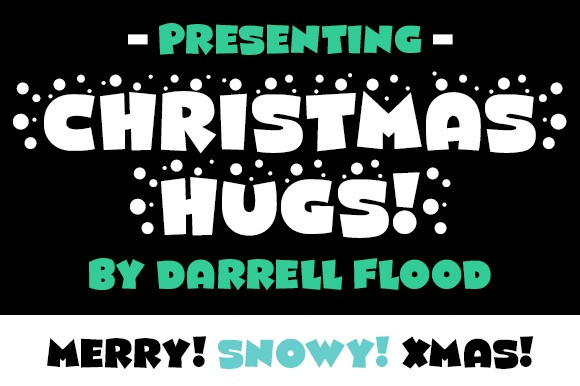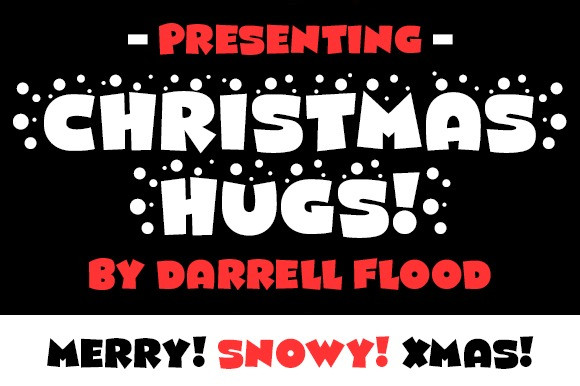
Christmas Hugs Font
Christmas Hugs Display Font,  Ideal for logos, comic ,decorative ,christmas , cartoon , product packaging, header, poster, merchandise, social media & greeting cards.